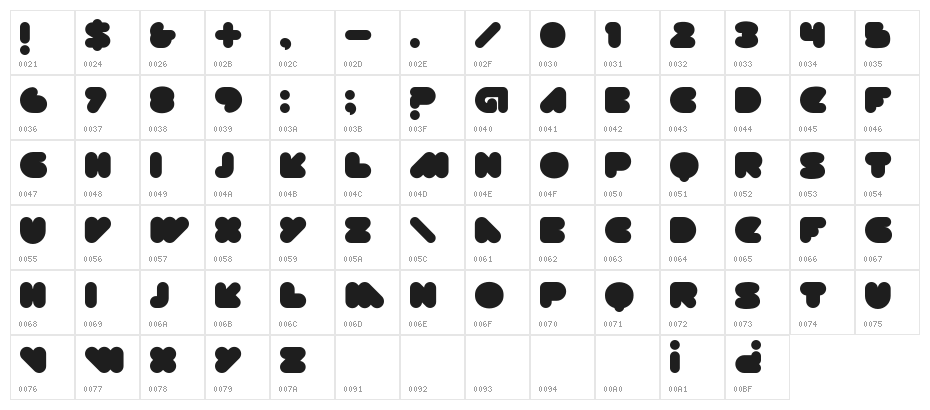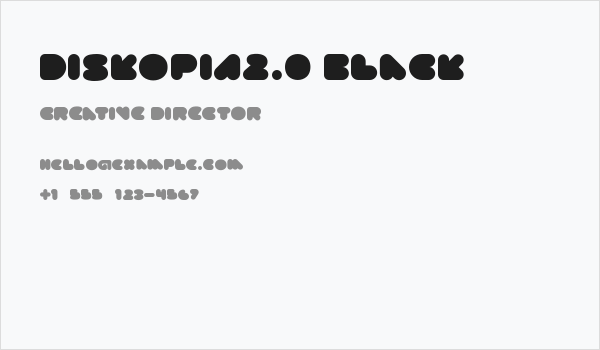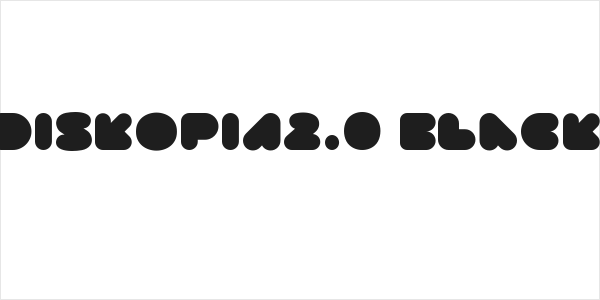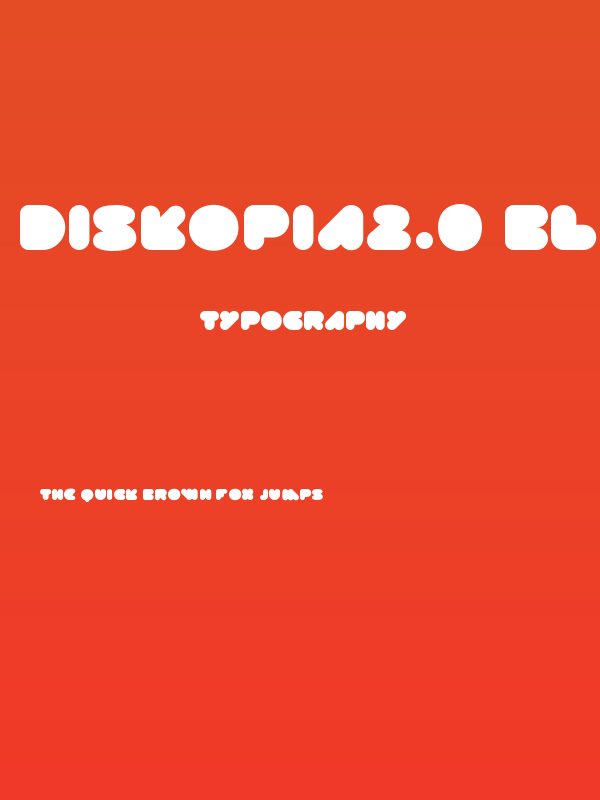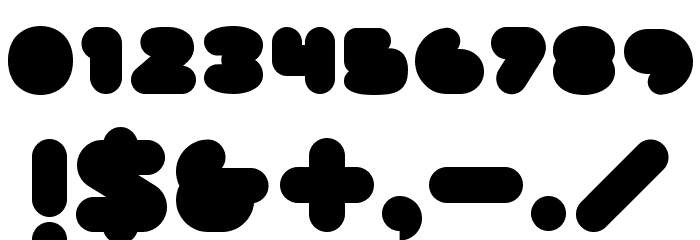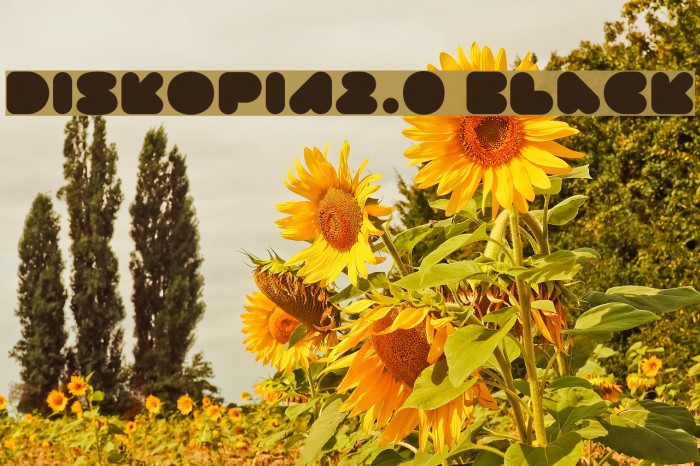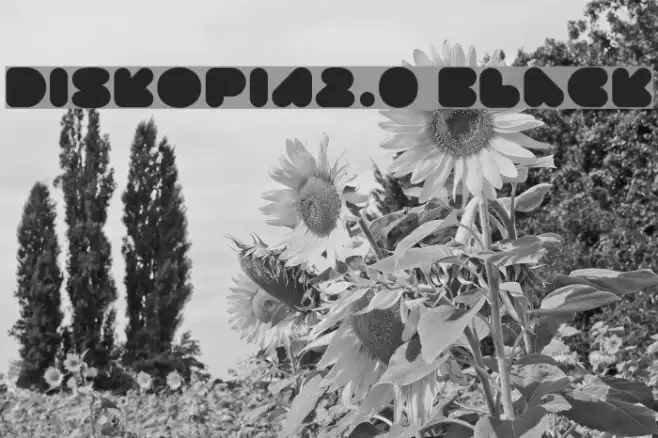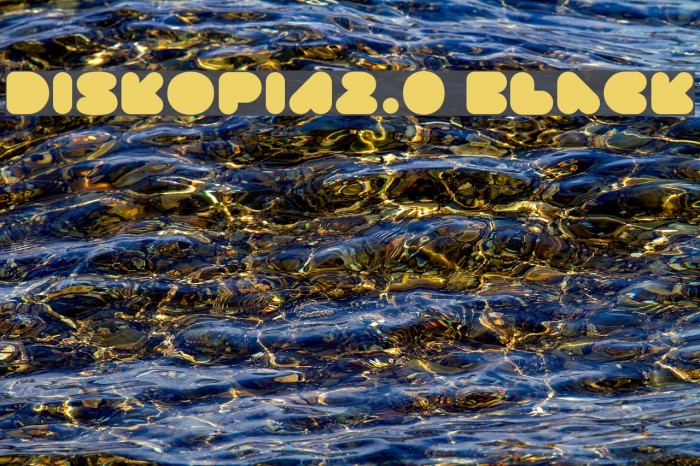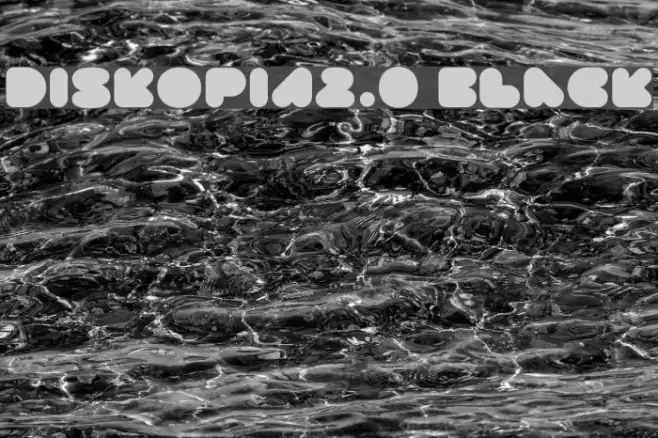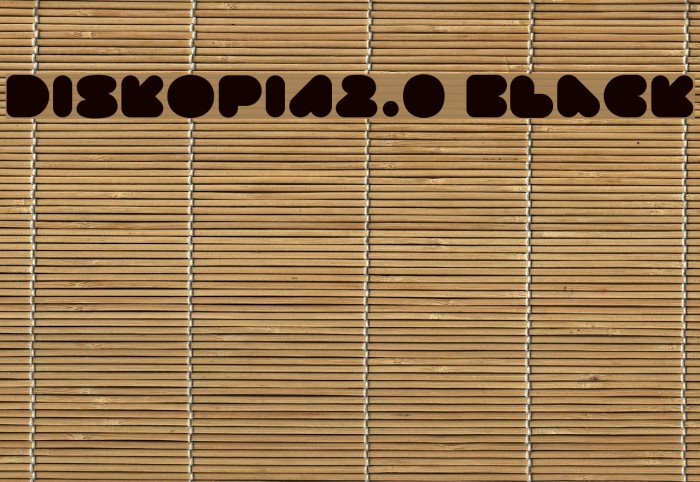
DISKOPIA2.0 Black Font
DISKOPIA2.0 Black Description
This font features bold, rounded characters with a playful and modern aesthetic. The letters are heavily weighted, giving them a strong presence on the page. The rounded edges and uniform thickness throughout each character create a cohesive and friendly appearance. The font is highly legible, even at smaller sizes, due to its clear and distinct shapes. It includes a full set of uppercase and lowercase letters, numerals, and a selection of special characters. The overall style is contemporary and eye-catching, making it suitable for a variety of design applications.
| Proposed Projects | Ideal for branding, posters, children's books, and any project requiring a fun and engaging typeface. |